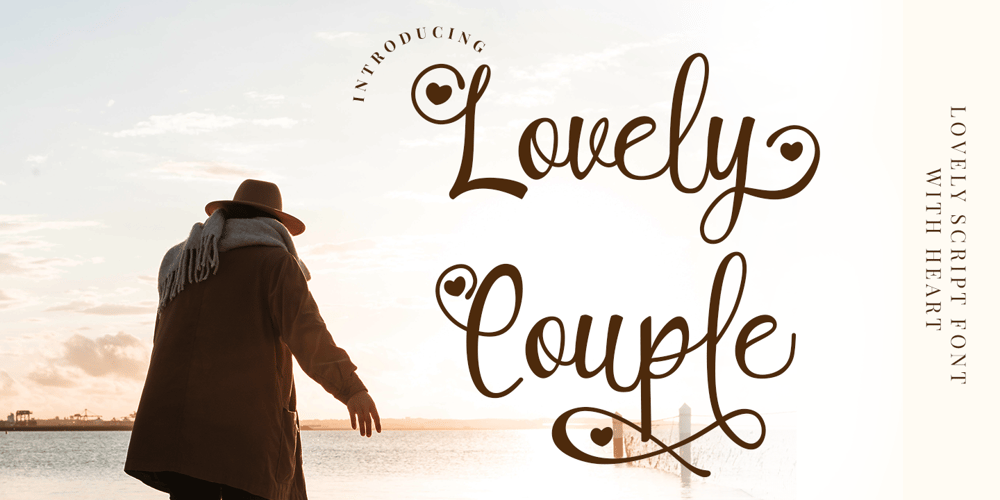
Lovely Couple
Lovely Couple font
Lovely Couple Font Family was designed by Putra Novembria Candra Kusuma and published by Putracetol. Lovely Couple contains 1 styles and family package options. Introducing a new romantic and a beautiful handwritting script font called “Lovely Couple”. Come with open type feature with a lot of alternates, its help you to make great lettering.Lovely Couple best uses for invitation, wedding, heading,cover, poster, logos, quotes, product packaging, header, merchandise, social media & greeting cards and many more.This font is also support multi language.